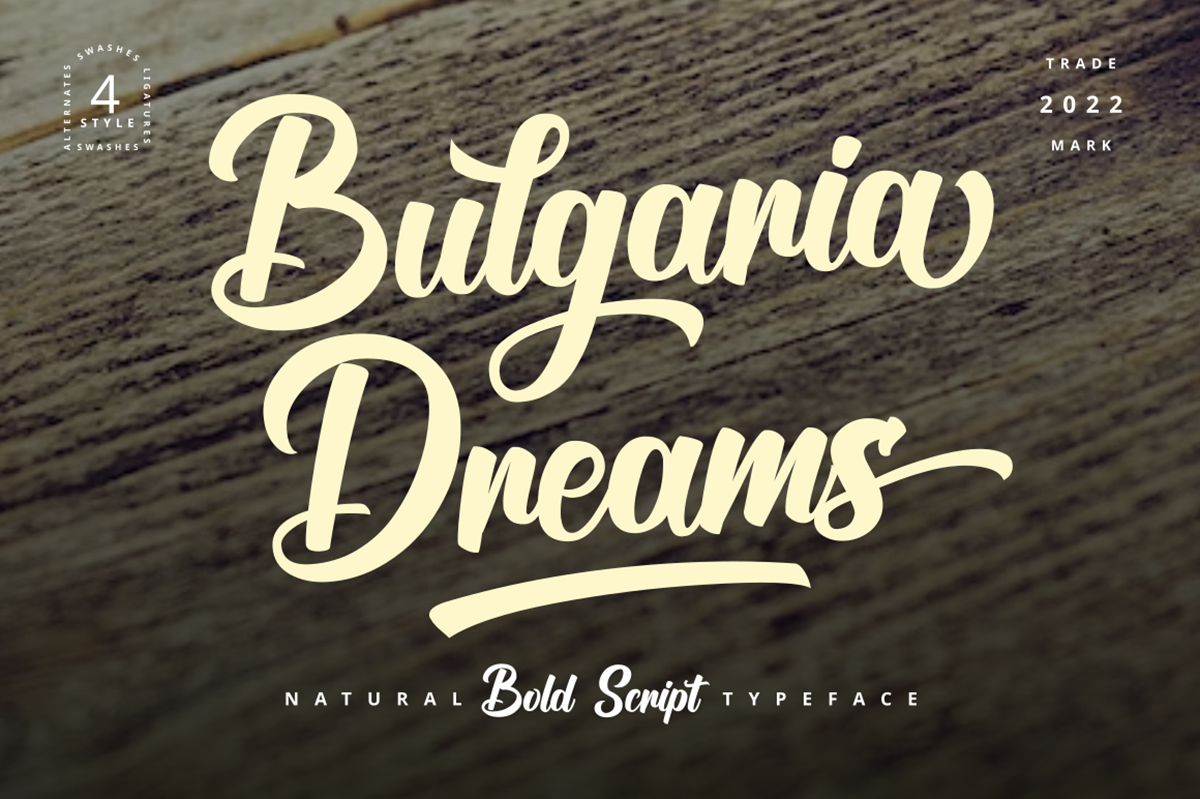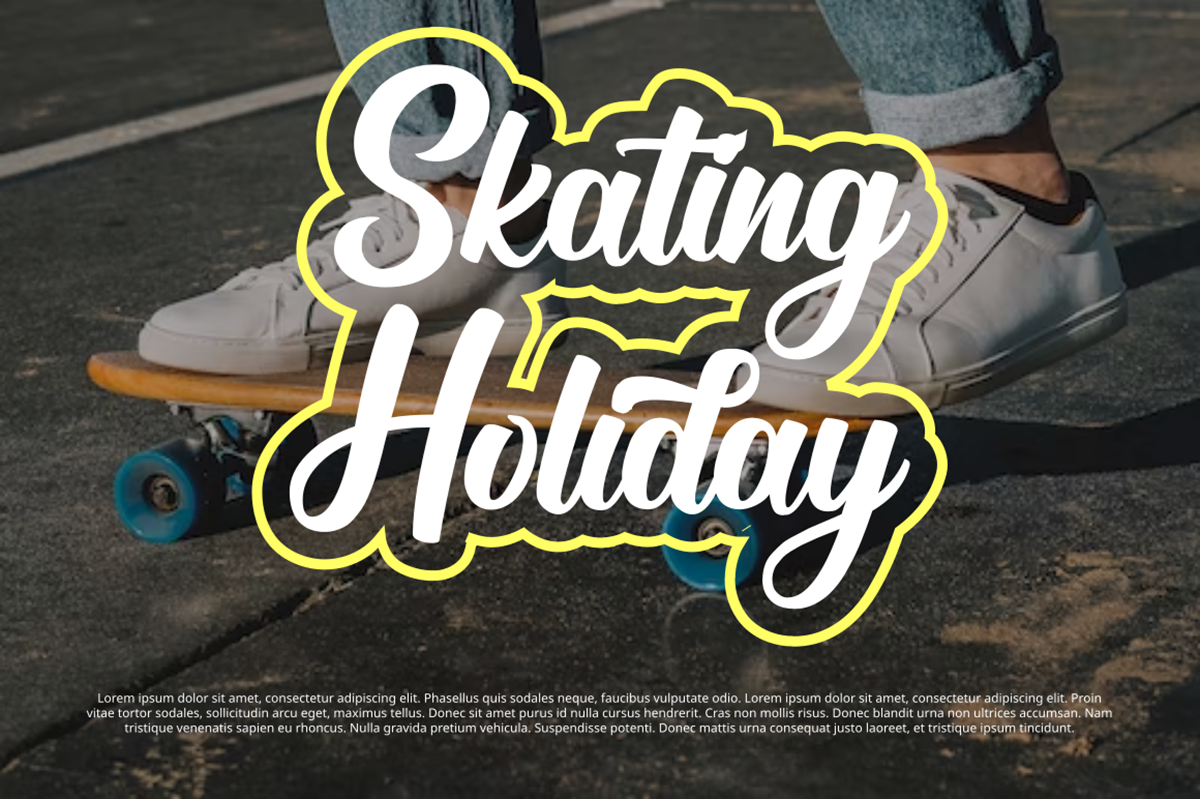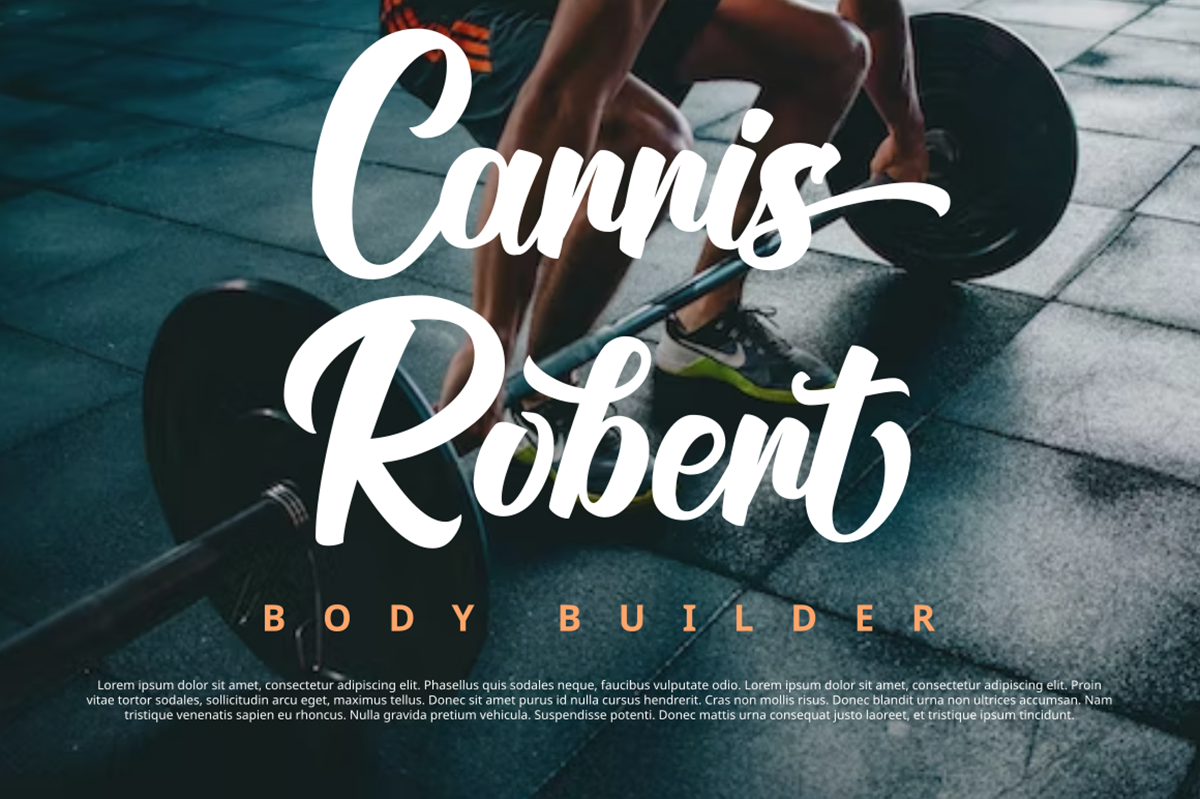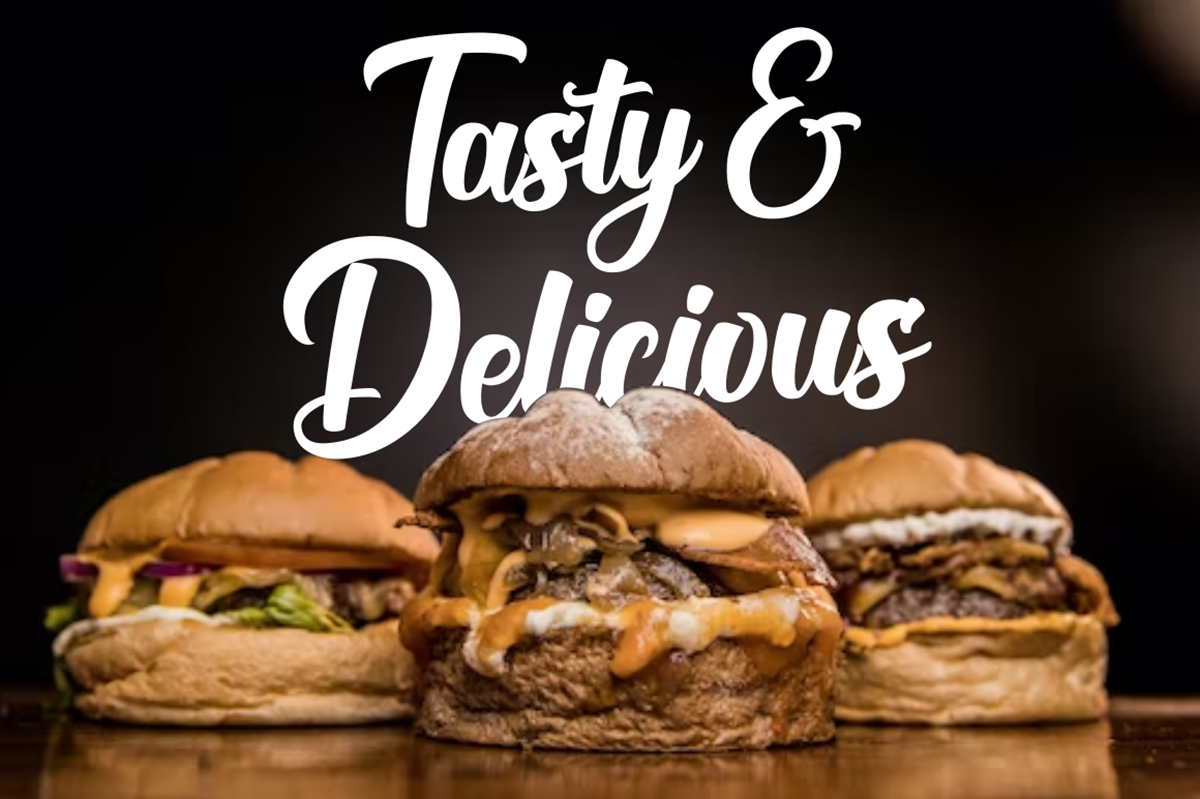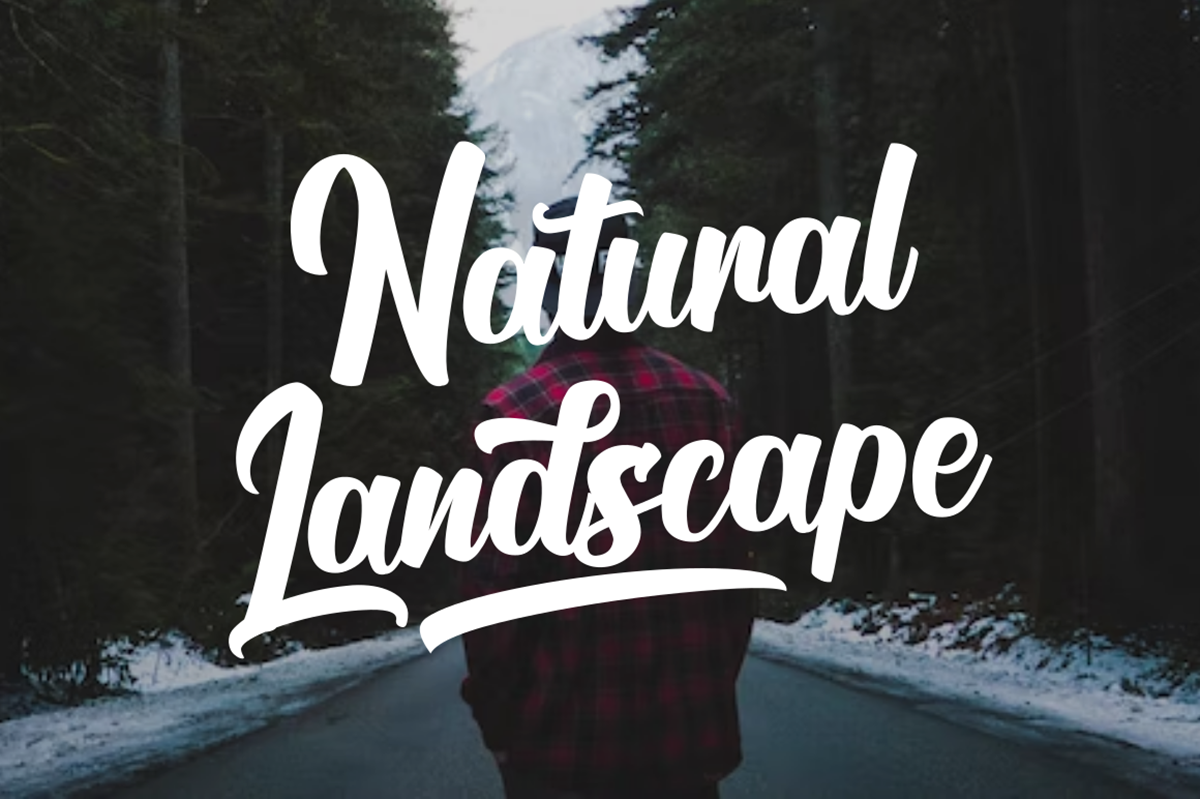
Bulgaria Dreams Free Font
Bulgaria Dreams Free Font is a lettering style font with smooth and natural curved lines that look similar to writing on paper using a brush pen. This free typeface was designed by a talented Ryan Creative. If you like it don’t forget to check out the full version.